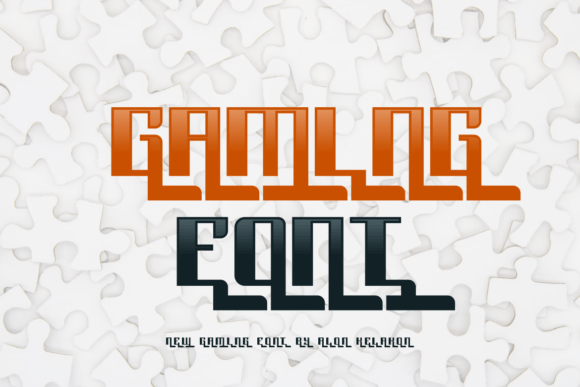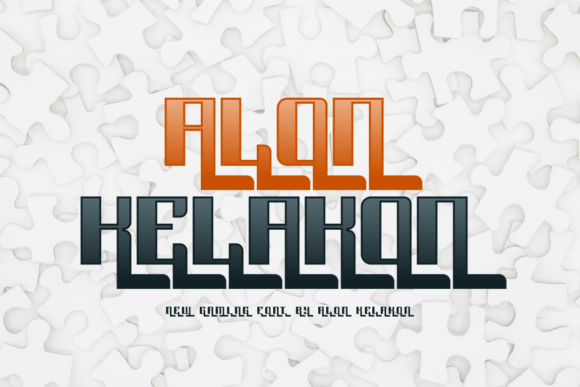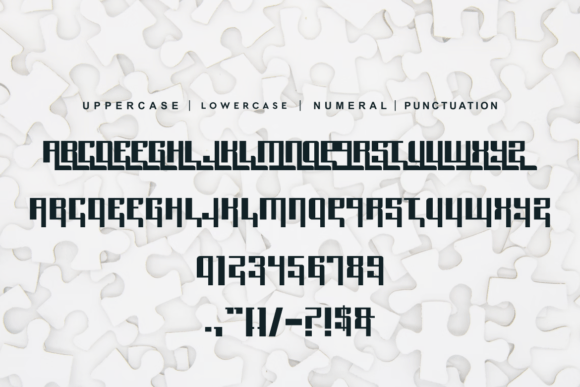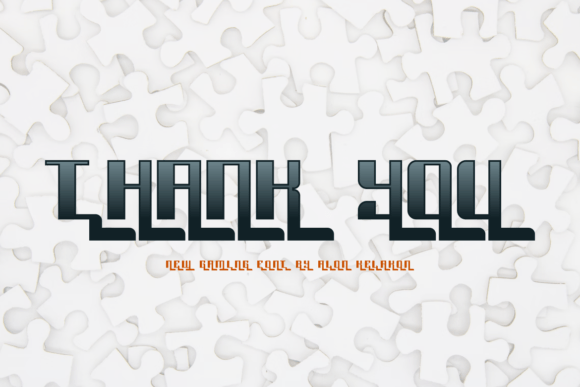
Unleash Your Creativity with Game Puzzle Font: The Ultimate Display Font
Are you a designer, craftsperson, or simply someone who loves to dabble in creative projects? Look no further than the Game Puzzle Font, a cool and modern display font that’s taking the design world by storm. Masterfully designed to become a true favorite, this font has the potential to bring each of your creative ideas to the highest level. In this article, we’ll dive into the features, benefits, and uses of the Game Puzzle Font, and explore how it can elevate your designs to new heights.
What is Game Puzzle Font?
Game Puzzle Font is a carefully crafted display font that’s perfect for headlines, titles, and any other design element that needs a bold and eye-catching look. Its unique and modern design makes it an excellent choice for a wide range of projects, from video games and mobile apps to posters, flyers, and branding materials.
Key Features of Game Puzzle Font
- Unique and Modern Design: Game Puzzle Font boasts a distinctive and contemporary look that’s sure to grab attention.
- Highly Versatile: This font can be used for a variety of projects, from digital designs to print materials.
- Easily Readable: Despite its bold and decorative style, Game Puzzle Font remains highly legible, even at smaller sizes.
- Extensive Character Set: The font includes a wide range of characters, ensuring that you have everything you need to create stunning designs.
Benefits of Using Game Puzzle Font
So why choose Game Puzzle Font for your next project? Here are just a few benefits of using this incredible display font:
- Stand Out from the Crowd: With Game Puzzle Font, you can create designs that are truly unique and attention-grabbing.
- Enhance Your Brand: This font’s modern and stylish look makes it perfect for branding materials, helping to establish your company as fresh and forward-thinking.
- Boost Creativity: Game Puzzle Font’s versatility and expressiveness make it an excellent choice for creative projects, helping to spark new ideas and inspiration.
- Save Time: With its extensive character set and easily readable design, Game Puzzle Font can save you time and effort in your design work.
How to Use Game Puzzle Font
- Pair it with Other Fonts: Combine Game Puzzle Font with complementary fonts to create stunning contrast and visual interest.
- Experiment with Colors: Try out different colors and gradients to add depth and emotion to your designs.
- Play with Size and Scale: Use Game Puzzle Font in a range of sizes to create visual hierarchy and draw attention to key elements.
- Is Game Puzzle Font suitable for body text?
- While Game Puzzle Font is primarily designed for display use, it can be used for short blocks of body text. However, for longer passages, a more traditional font may be more suitable.